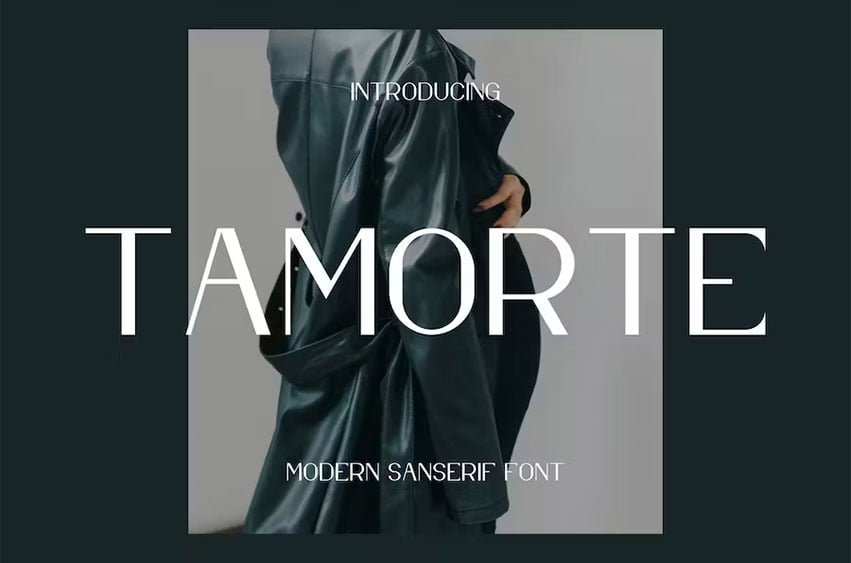
Tamorte Font modern font is a bold and authentic display font. The font is suitable for any branding project. Outstanding in a wide range of contexts.